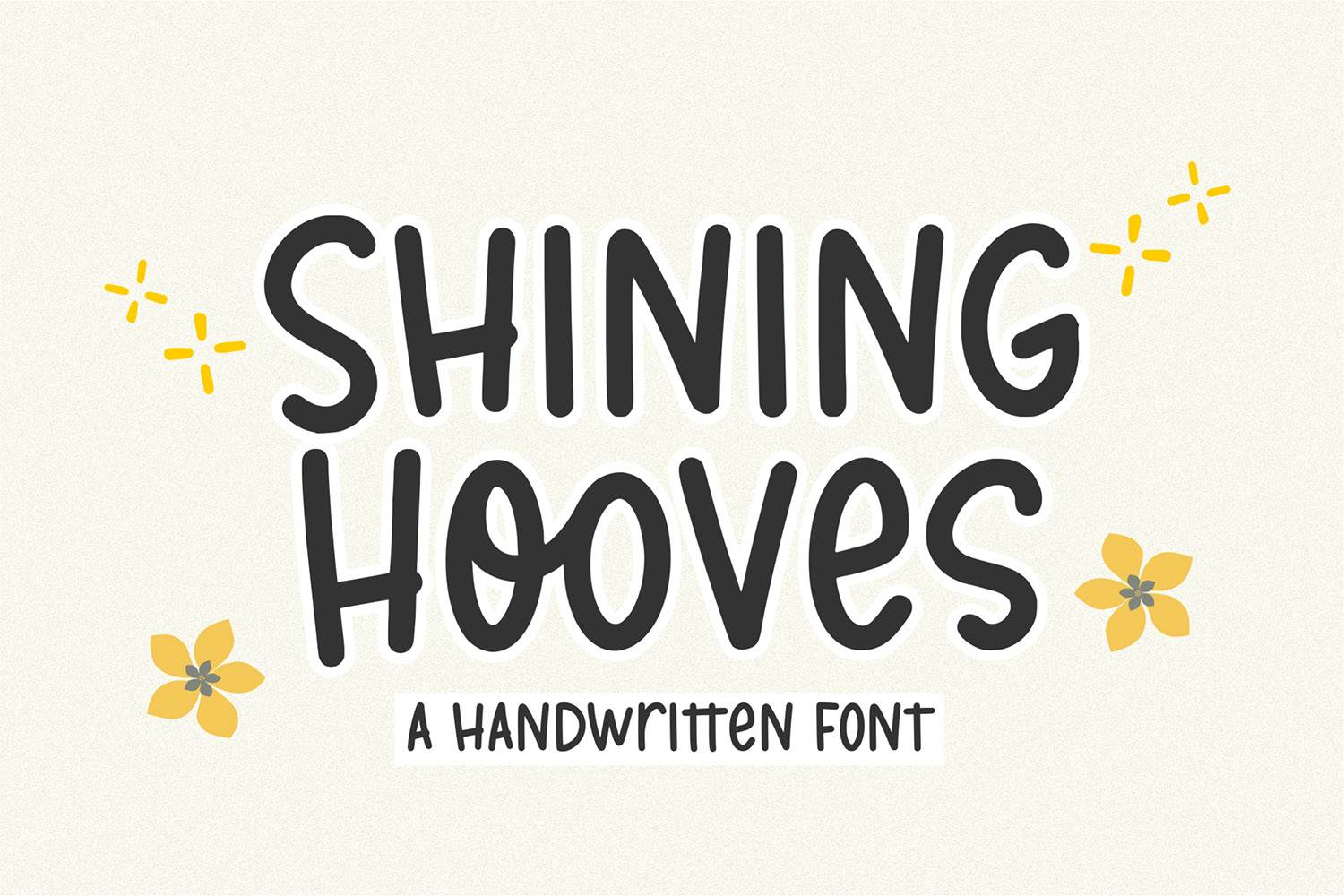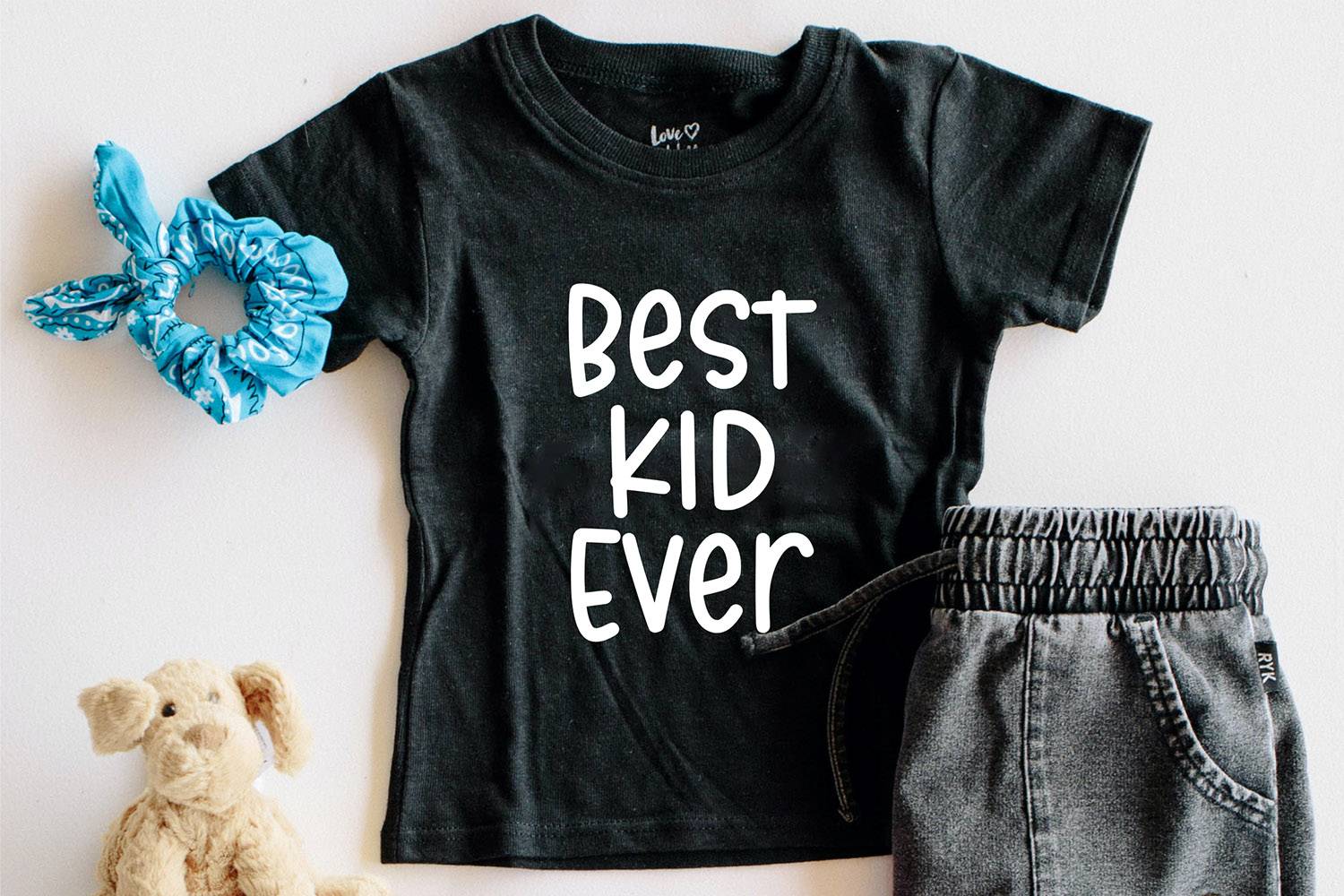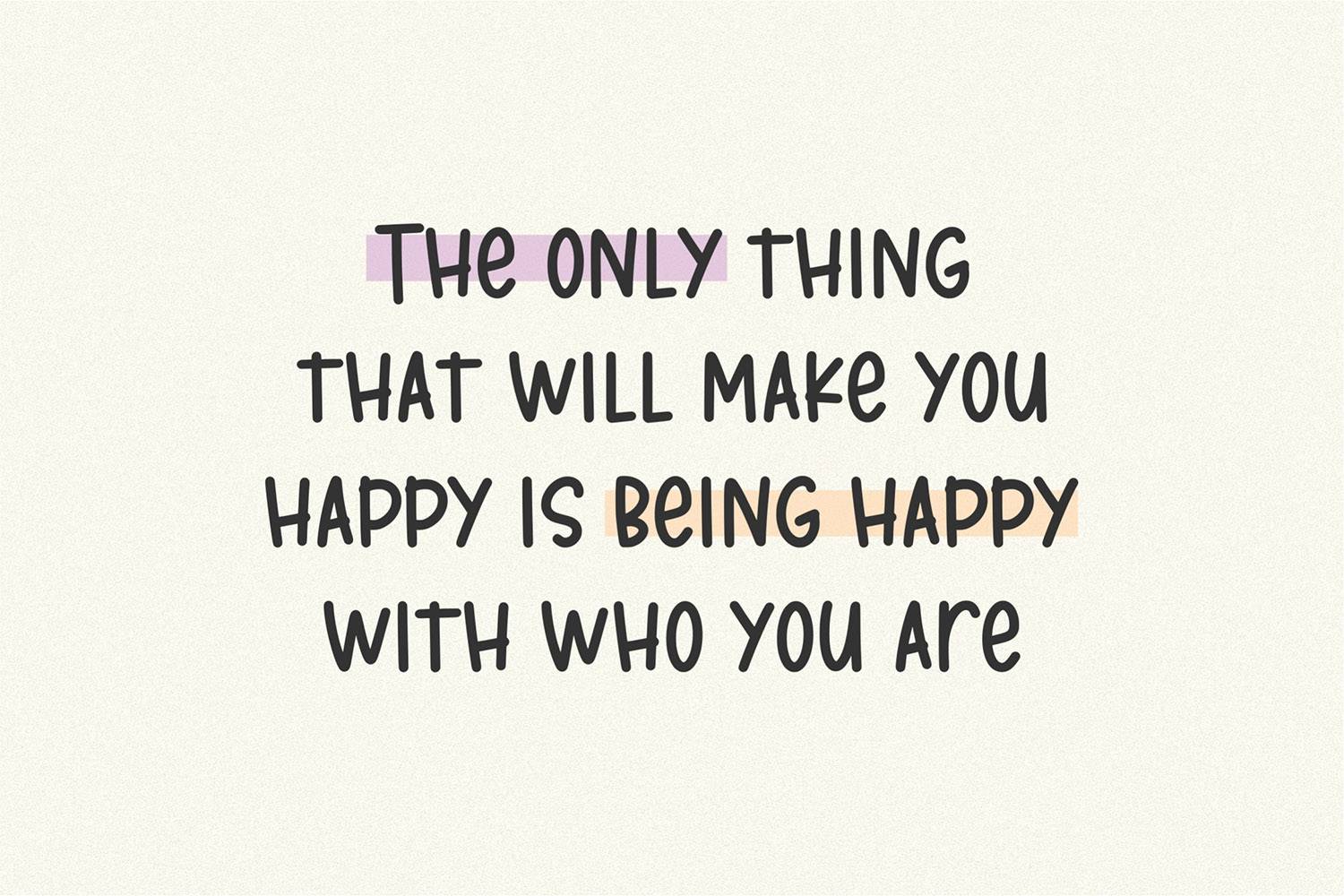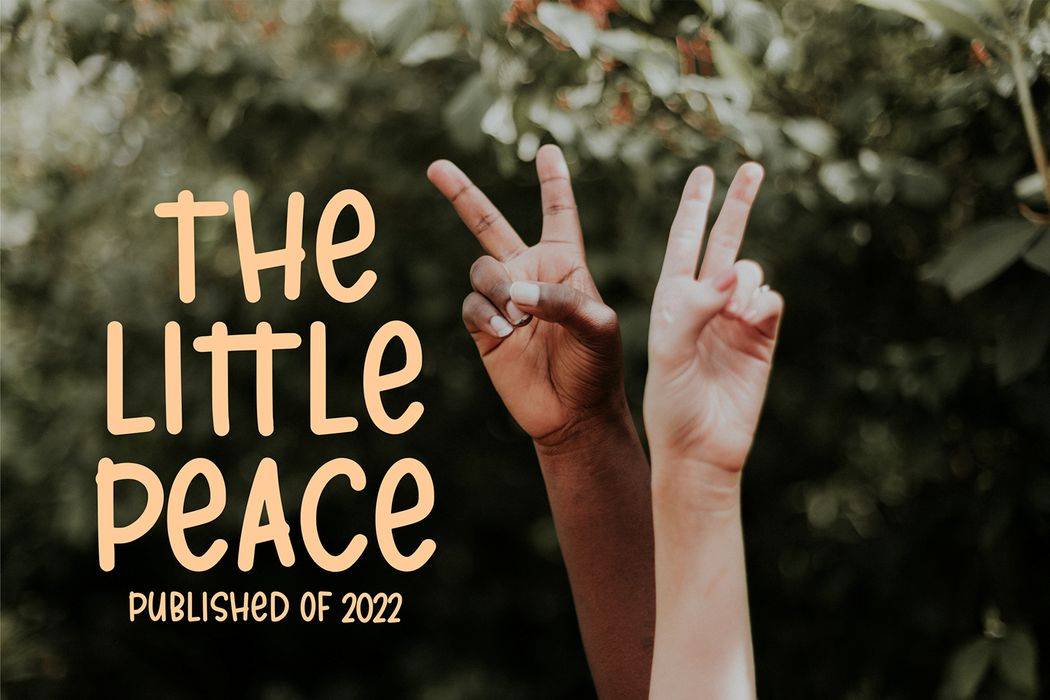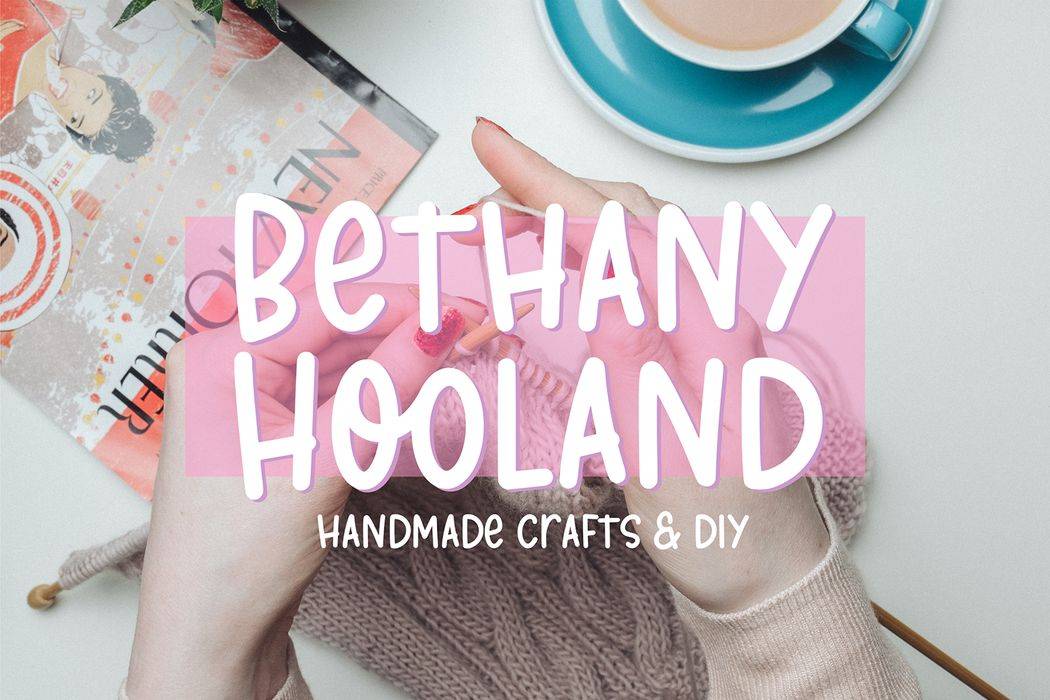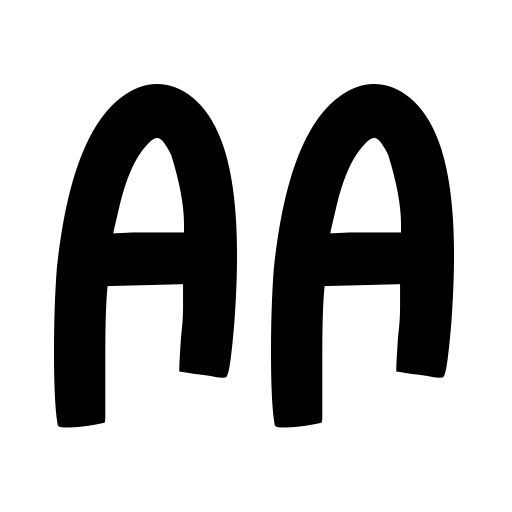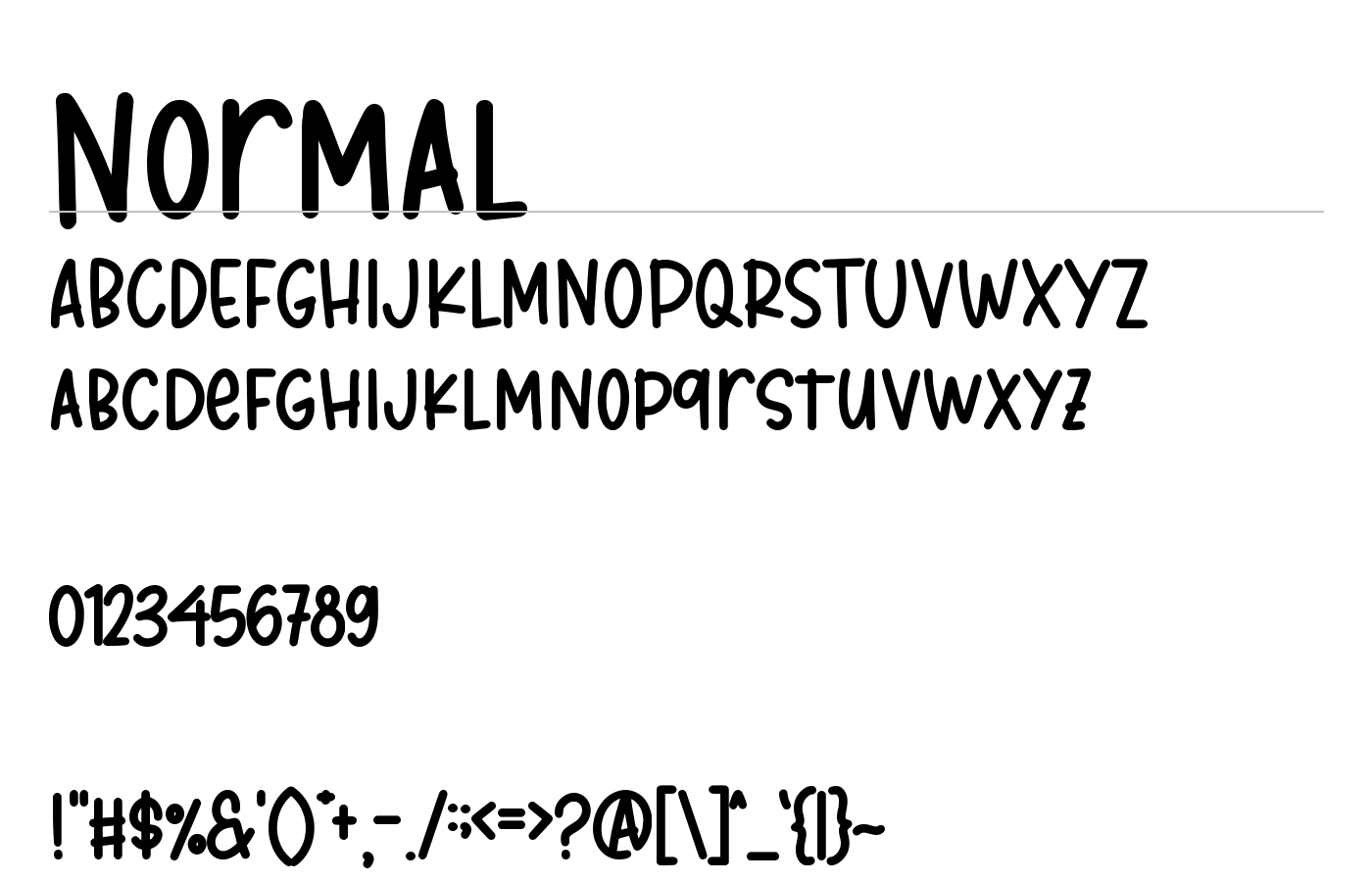
Shining Hooves is a playful, handwritten sans serif font featuring tall, narrow letterforms with a casual and friendly feel. Its consistent stroke weight and slightly uneven shapes give it a lively, approachable personality, making it ideal for informal, creative, or youth-oriented designs. This font works well for logos, packaging, children’s materials, and any project seeking a fun, personable touch.
Shining Hooves Font
About Shining Hooves Font